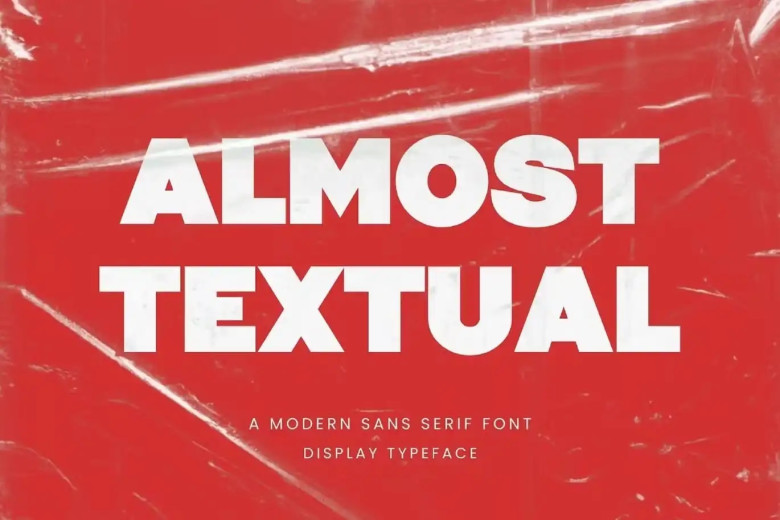
Almost Textual Font
Almost Textual is a Modern Sans Serif Font typeface inspired by the iconic minim logo is ideal for designing templates, brochures, videos, advertising branding logos, invitations, layout design, elegant craft beauty design projects and more.
Almost Textual Sans Serif Font